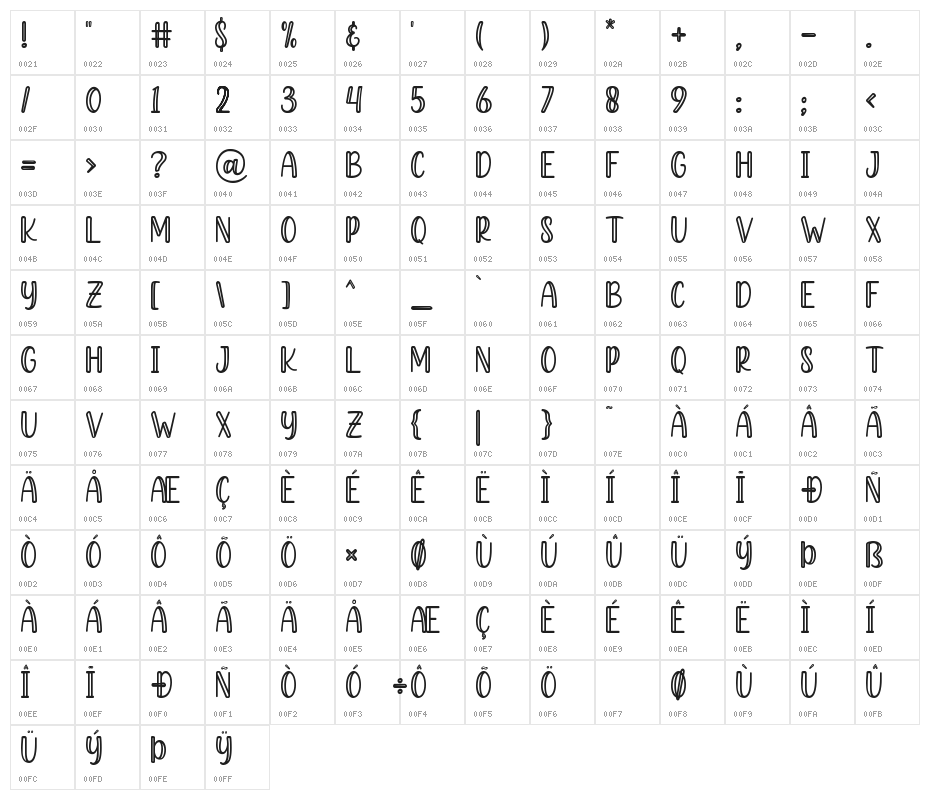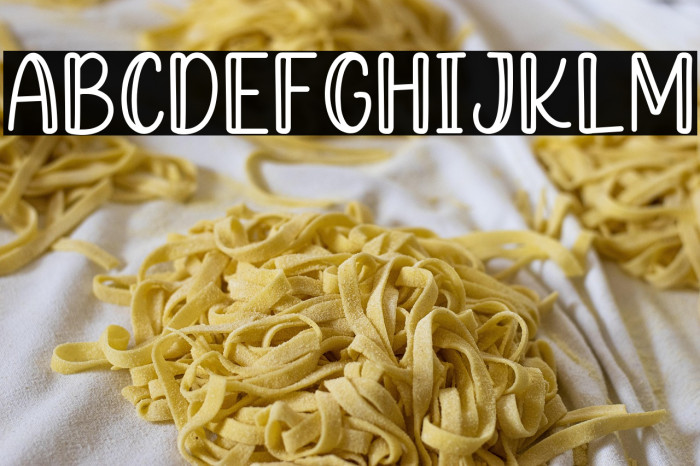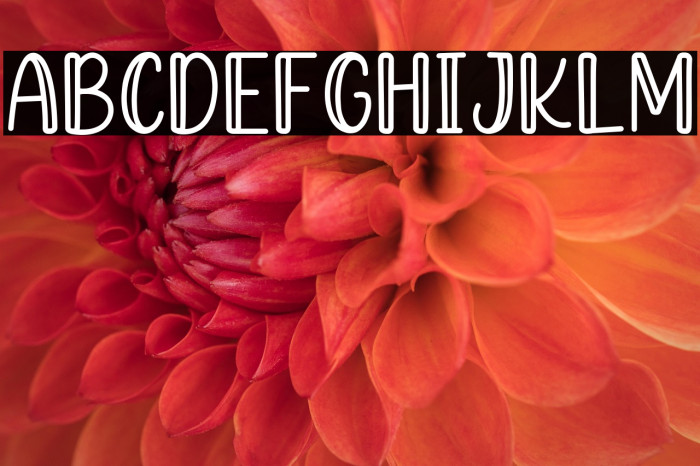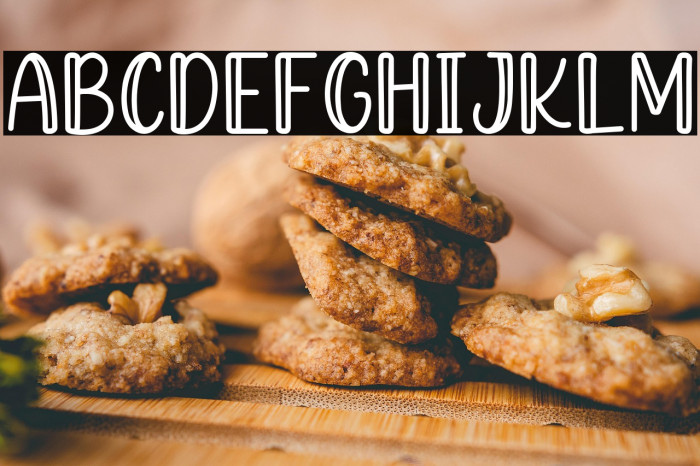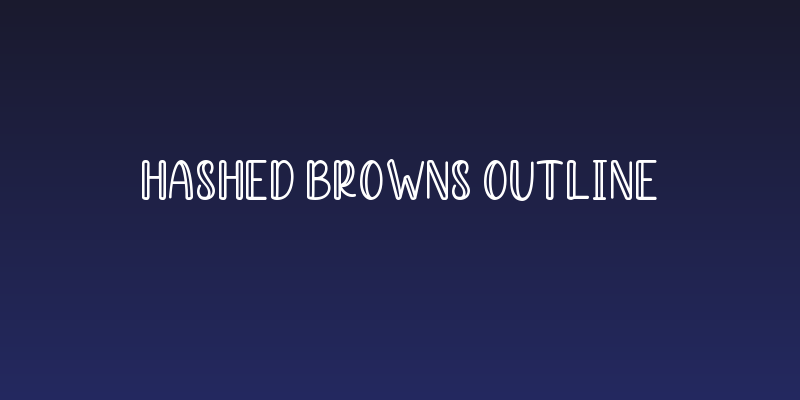
Hashed Browns Outline Font
Hashed Browns Outline Description
This playful and bold font features an outline style that gives it a unique and eye-catching appearance. The characters are rounded with a consistent stroke width, creating a harmonious and approachable look. The uppercase and lowercase letters maintain a uniform height, while the numbers and special characters are designed to complement the overall aesthetic. This font's whimsical nature makes it ideal for projects that require a fun and engaging visual element. Its clear and legible design ensures readability while adding a touch of creativity.
| Overall Style | Playful, Creative |
| Proposed Projects | Ideal for children's books, playful branding, posters, and creative invitations. |